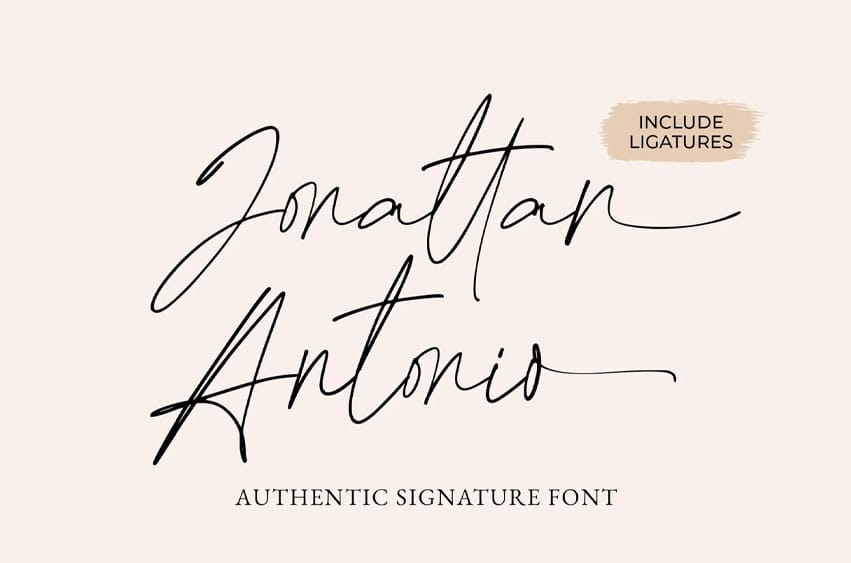
Jonattan Antonio Font is a modern signature font that captures the beauty of elegant handwriting with natural rhythm and fluid strokes. Designed to reflect authentic penmanship, each letter flows seamlessly, making it the perfect choice for upscale branding, personalized designs, and sophisticated presentations.
Crafted with care and precision, Jonattan Antonio delivers a clean yet character-rich aesthetic that enhances everything from logos to editorial designs.
- Realistic handwritten look with natural curves
- Complete character set (uppercase, lowercase, numbers & punctuation)
- Includes ligatures for natural flow
- Multilingual support for Latin-based languages
- Elegant logo designs
- Personal branding materials
- Stationery and business signatures
- Social media graphics and quotes
- Invitations and minimalist packaging
Add a touch of elegance and personality to your projects with Jonattan Antonio, a graceful signature font for refined creatives.